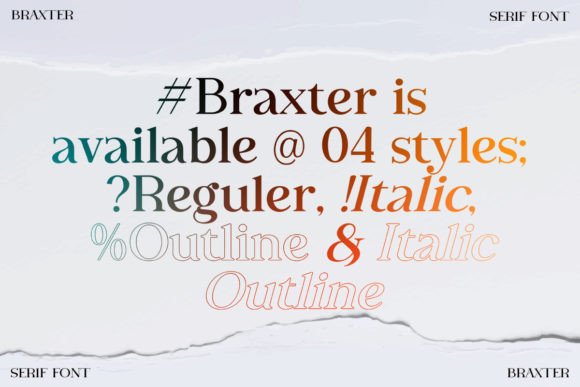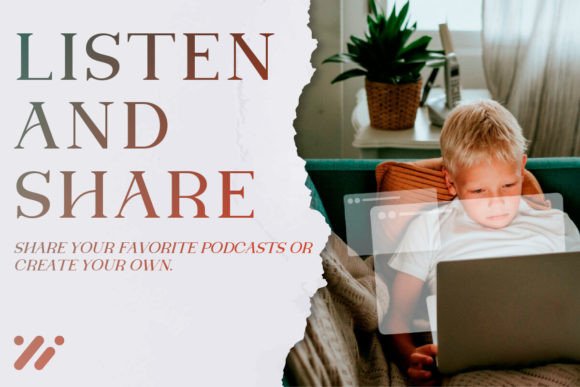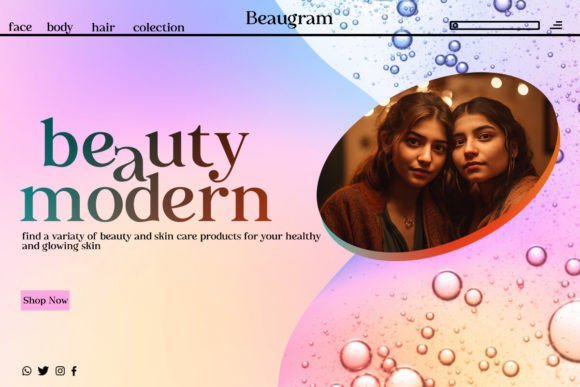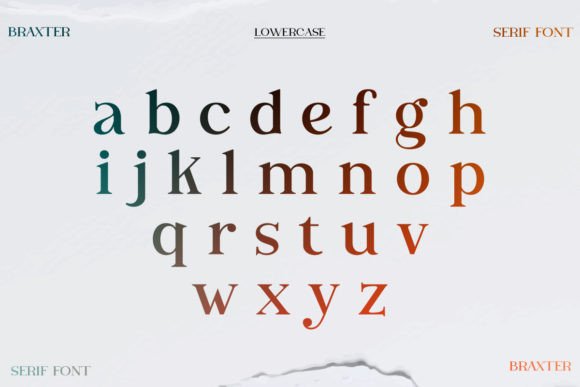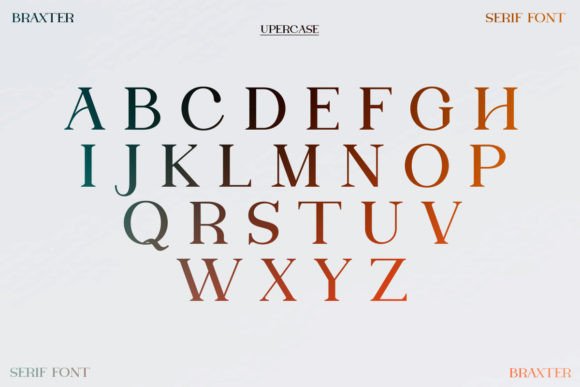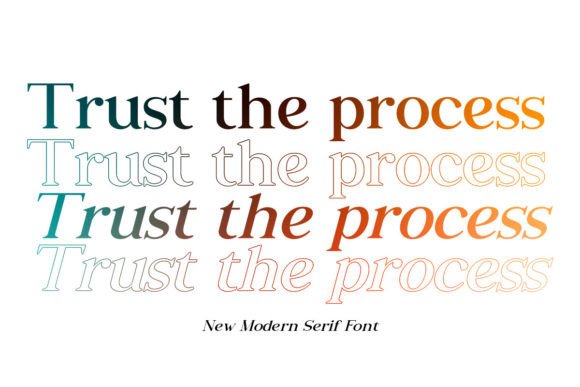
Braxter Font: A Timeless Classic with a Modern Twist
In the world of typography, fonts play a crucial role in conveying the tone and aesthetic of a design. For designers and crafters looking to create nostalgic yet clean and elegant designs, Braxter Font is an excellent choice. This classic and elegant retro serif font with a modern twist has been making waves in the design community, and for good reason.
The Inspiration Behind Braxter
Braxter Font draws inspiration from the retro aesthetics that are making a comeback in the world of design. The font’s creators aimed to craft a typeface that would evoke a sense of nostalgia while still being clean and elegant. The result is a font that is perfect for creating a wide range of designs, from logos and packaging to editorials and more.
Key Features of Braxter Font
So, what makes Braxter Font so special? Here are a few key features that set it apart:
- Decent Readability: Braxter Font boasts excellent readability, making it perfect for both display and body text. Whether you’re using it for a headline or a paragraph of text, Braxter is easy on the eyes.
- Retro Serif Style: Braxter’s retro serif style gives it a classic and elegant feel that’s perfect for creating nostalgic designs.
- Modern Twist: Despite its retro inspiration, Braxter has a modern twist that sets it apart from more traditional serif fonts.
Use Cases for Braxter Font
Braxter Font is a versatile typeface that can be used in a wide range of design applications. Here are a few ideas to get you started:
- Logos: Braxter’s classic and elegant style makes it perfect for creating logos that need to convey a sense of sophistication and nostalgia.
- Packaging: Whether you’re designing a label for a product or a packaging system, Braxter is an excellent choice.
- Editorials: Braxter’s readability and style make it perfect for use in editorials, such as magazines, newspapers, and blogs.
- Branding: Braxter can be used to create a cohesive brand identity that evokes a sense of nostalgia and elegance.
Why Designers and Crafters Love Braxter
So, why are designers and crafters raving about Braxter Font? Here are a few reasons:
- Unique Style: Braxter’s unique blend of retro and modern styles sets it apart from other fonts on the market.
- Versatility: Braxter can be used in a wide range of design applications, making it a valuable addition to any designer’s toolkit.
- Easy to Read: Braxter’s decent readability makes it perfect for use in both display and body text.
In conclusion, Braxter Font is a timeless classic with a modern twist that’s perfect for designers and crafters looking to create nostalgic yet clean and elegant designs. With its decent readability, retro serif style, and modern twist, Braxter is an excellent choice for a wide range of design applications. Whether you’re creating a logo, packaging, editorials, or more, Braxter is sure to become a go-to font in your design arsenal.
In the world of typography, fonts like Braxter are a breath of fresh air. By combining classic and modern elements, Braxter’s creators have crafted a typeface that’s both nostalgic and forward-thinking. Whether you’re a seasoned designer or just starting out, Braxter Font is definitely worth checking out.